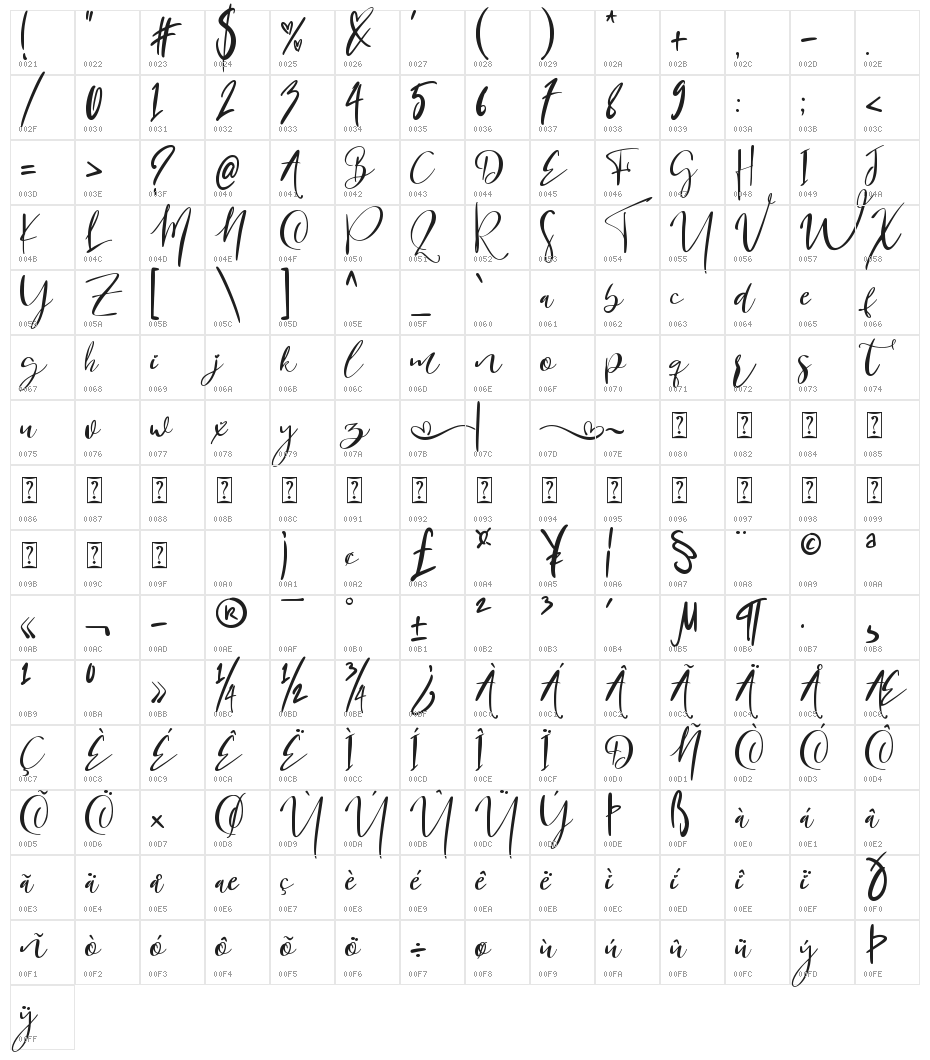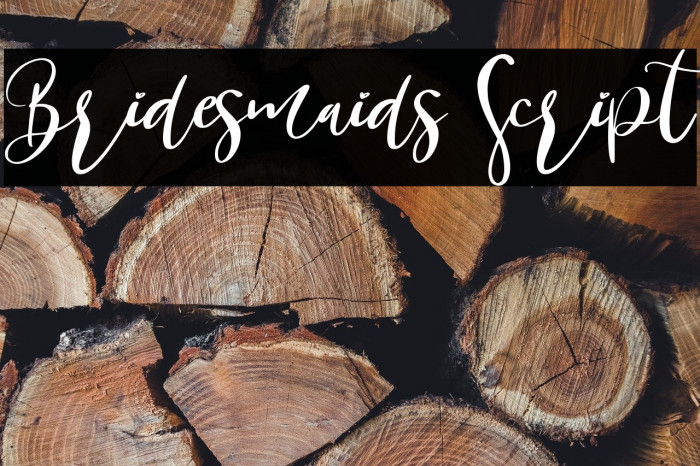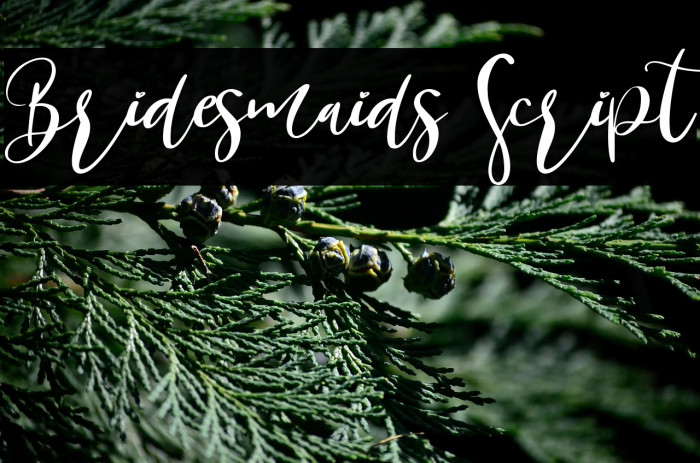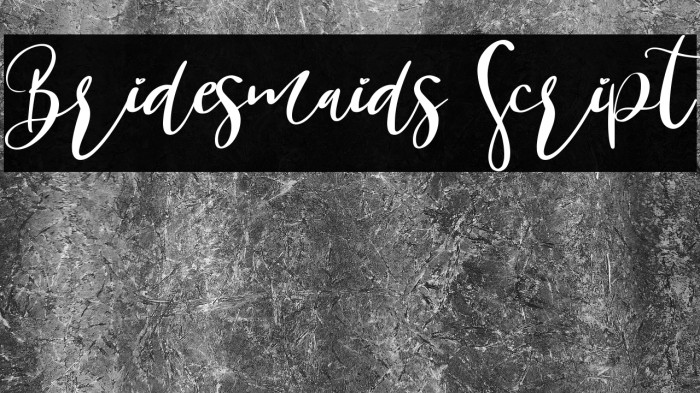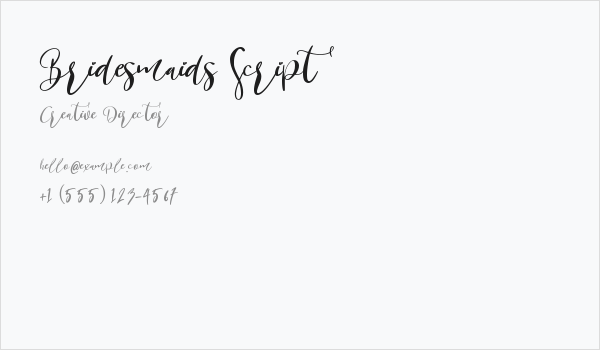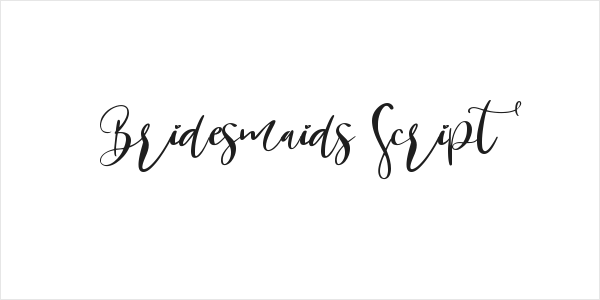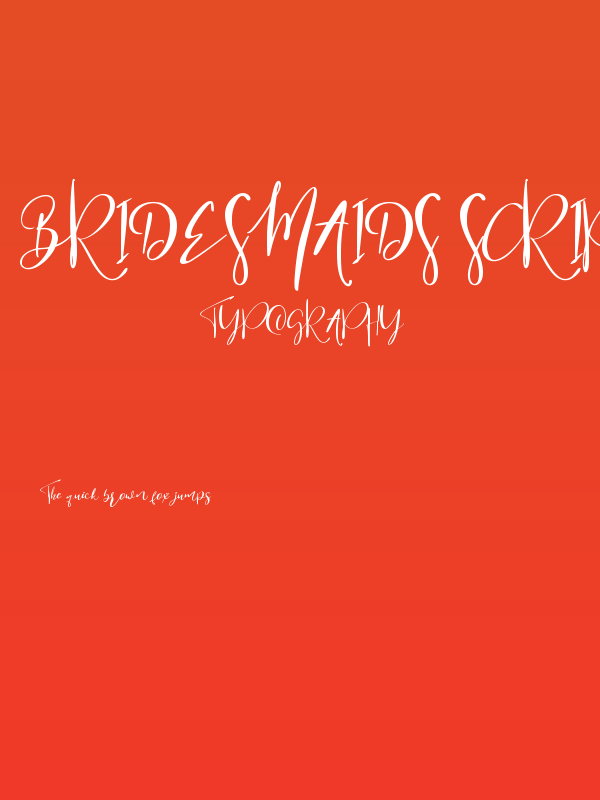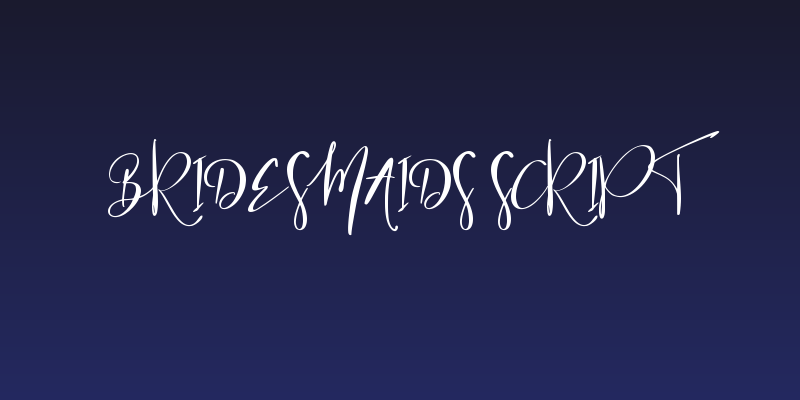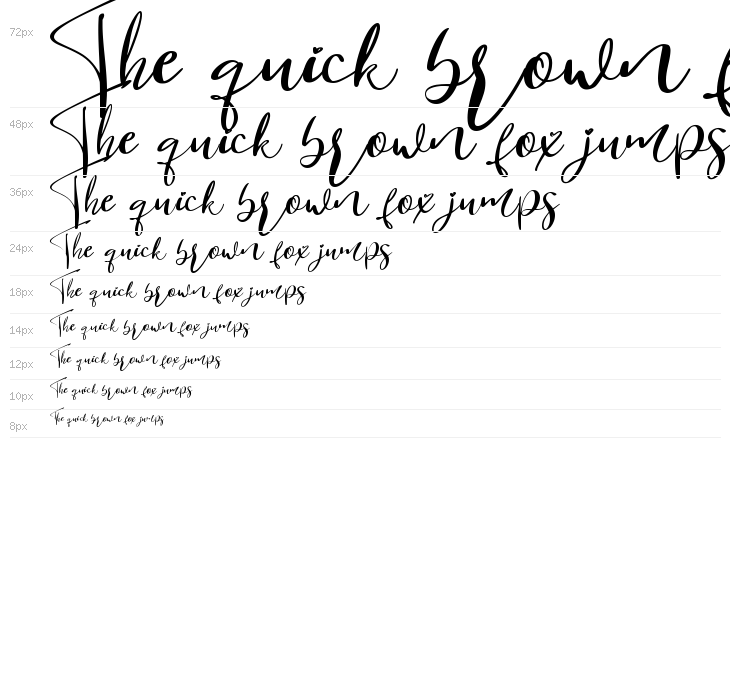
Bridesmaids Script Font
Bridesmaids Script Description
This font exudes a lively and elegant script style, characterized by its flowing, cursive letterforms that mimic the fluidity of handwritten calligraphy. The uppercase letters are tall and slightly slanted, with exaggerated loops and swashes that add a touch of sophistication and flair. The lowercase letters maintain a consistent rhythm, with smooth connections and a playful bounce that enhances its whimsical nature. The numerals are distinct and maintain the same cursive style, ensuring cohesion throughout the font. Special characters are thoughtfully designed, incorporating unique elements like hearts and stars, which add to the font's charm. Overall, this script font is perfect for projects that require a personal, artistic touch.